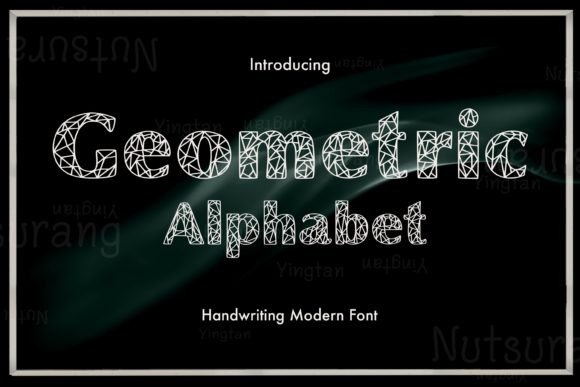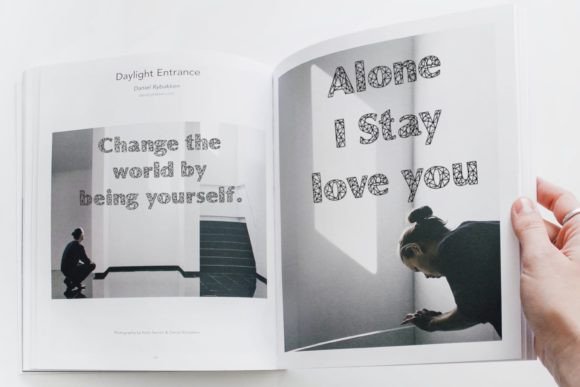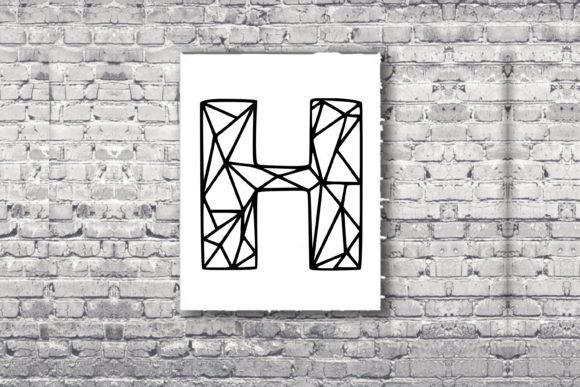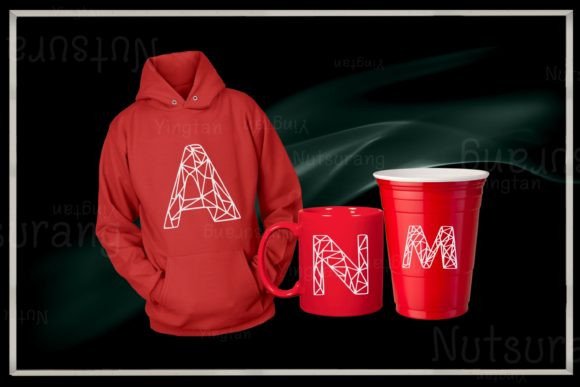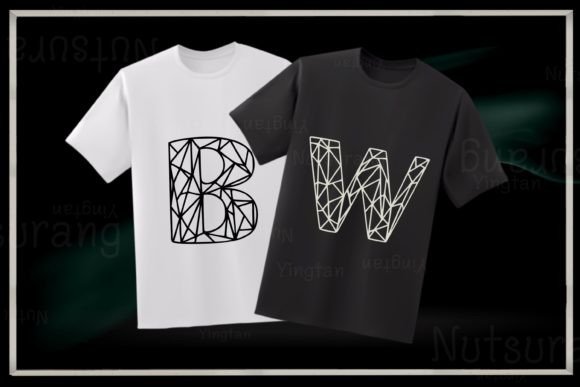
About Geometric Alphabet Font
Introducing the “Geometric Alphabet,” a font that stands out with its captivating geometric design, promising to seize your attention. This font is not just a typographic choice; it’s a visual statement that brings a remarkable and unique flair, making it an excellent fit for a variety of creative branding and packaging projects.
The standout feature of the “Geometric Alphabet” lies in its incredibly unique design. The geometric elements are skillfully incorporated into each letter, creating a visual impact that is both modern and attention-grabbing. The font’s distinctiveness ensures that it becomes a focal point of any design it graces.
Perfectly suited for creative branding initiatives, this font adds a contemporary touch to logos, taglines, and other brand elements. Its geometric aesthetic aligns seamlessly with modern design sensibilities, making it a versatile choice for businesses looking to make a bold statement.
In packaging projects, the “Geometric Alphabet” brings a fresh and dynamic energy. Whether applied to product labels, boxes, or promotional materials, the font adds a layer of sophistication and creativity, ensuring that your packaging stands out on the shelf.
The lettering of the font is meticulously crafted to match playful and casual designs. This versatility makes it adaptable to a range of creative applications, from playful marketing campaigns to casual and trendy product branding. Its ability to strike a balance between playfulness and modernity makes it an ideal choice for a wide range of design projects.
In conclusion, the “Geometric Alphabet” is more than just a font; it’s a design element that promises to elevate your projects to new heights. Its geometric allure guarantees attention, making it a go-to option for those seeking a modern, fresh, and unique typographic solution. Embrace the boldness of the “Geometric Alphabet” and let it be the key element that transforms your creative visions into visually striking and memorable designs.